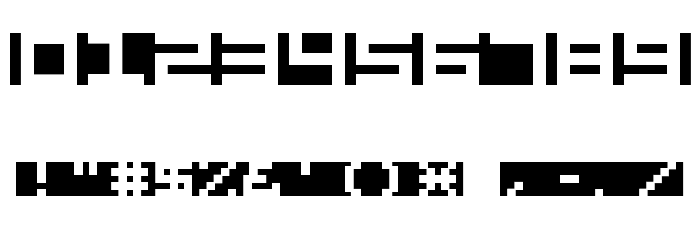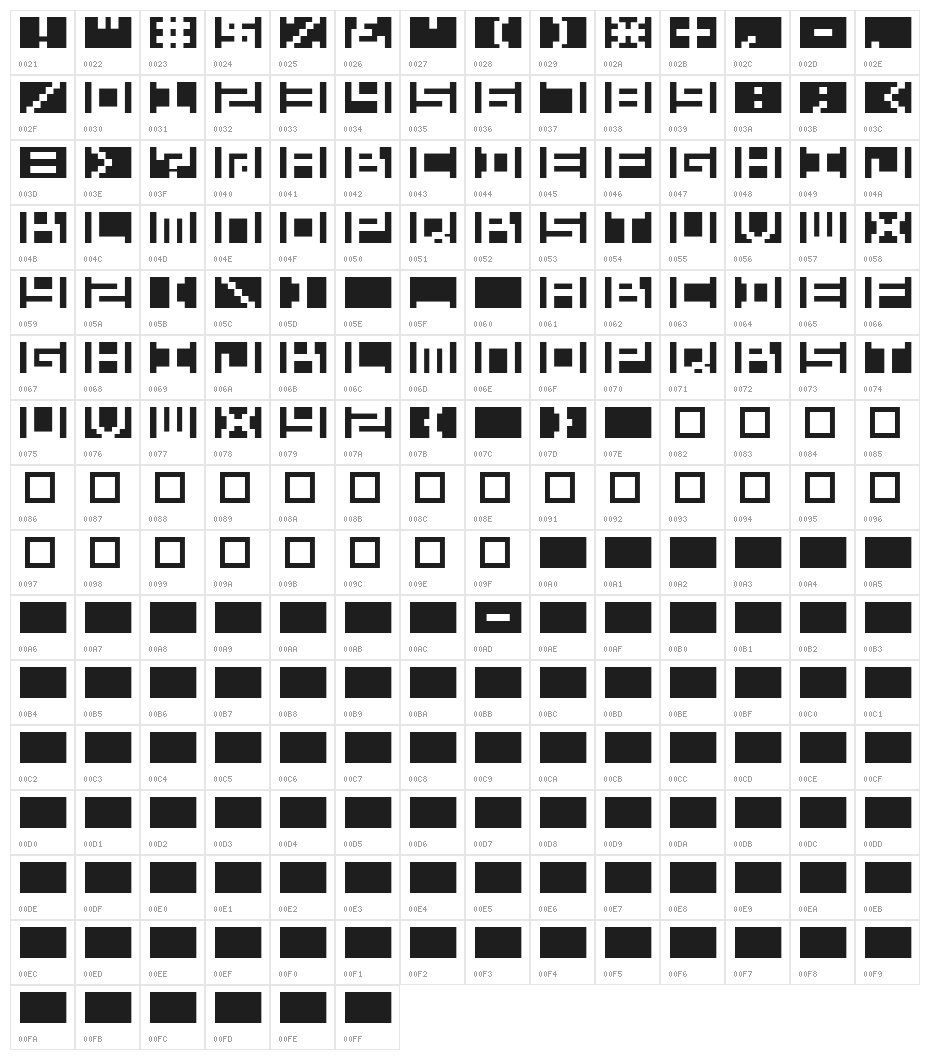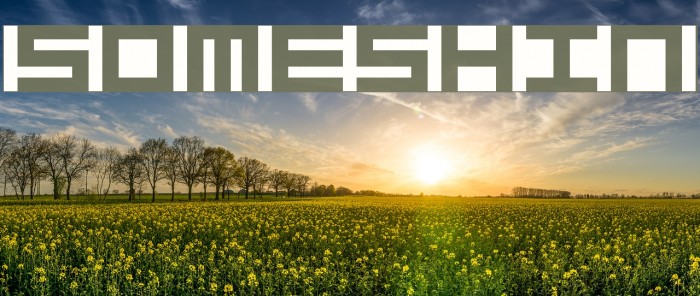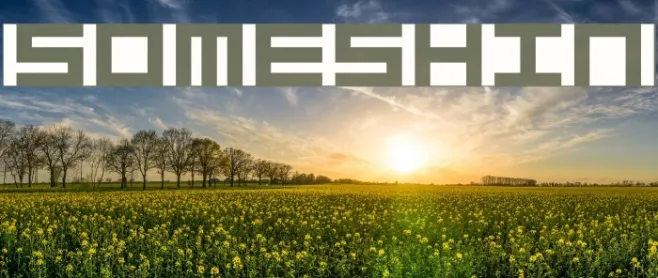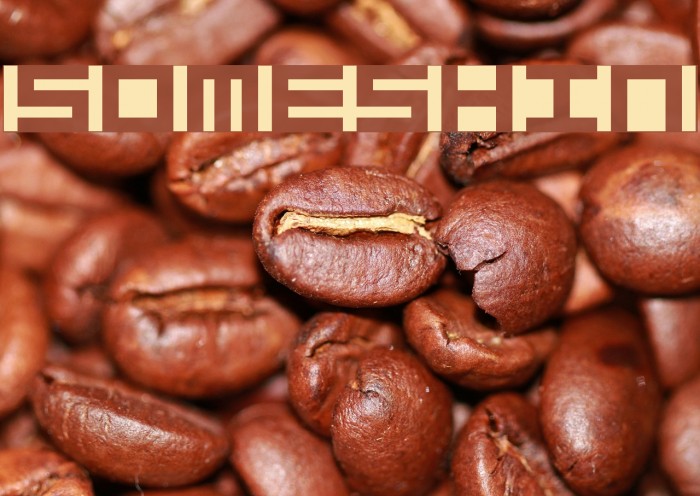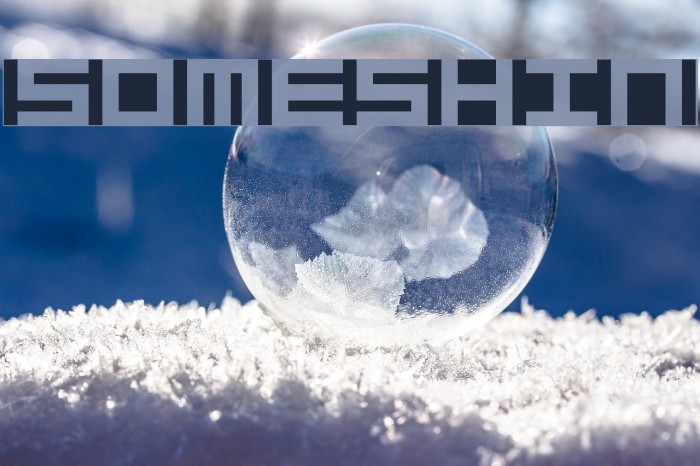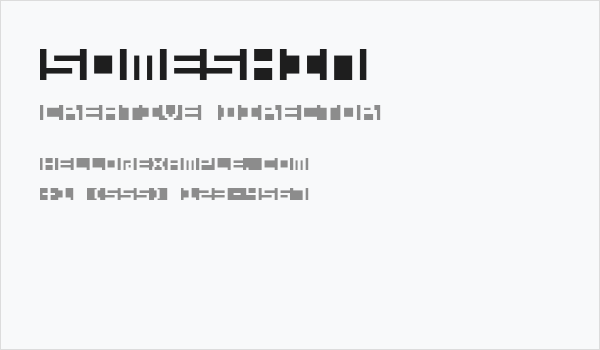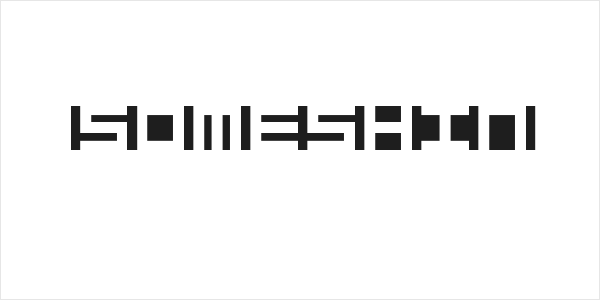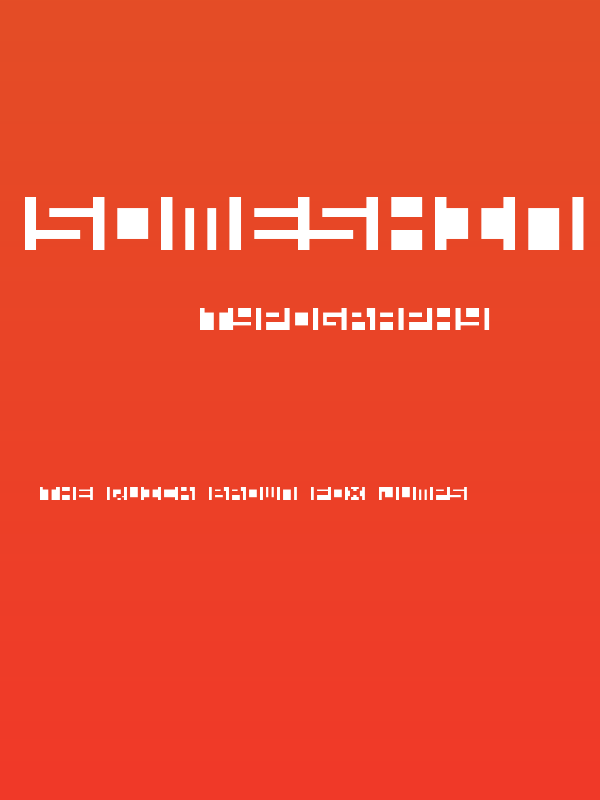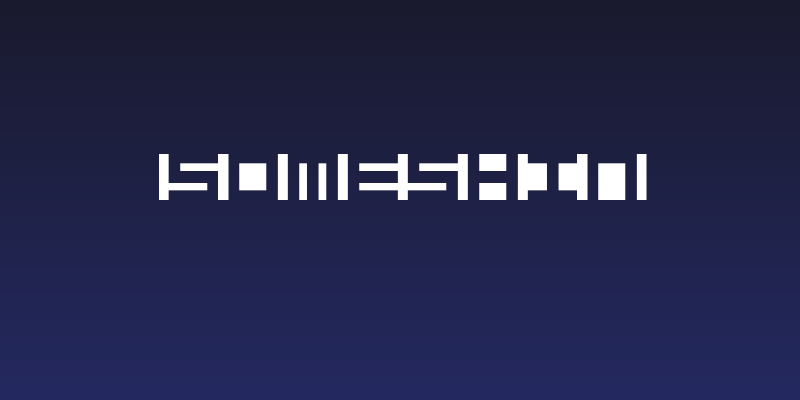
Someshin Font
This font features a highly abstract and geometric design, with each character composed of bold, block-like shapes. The characters are constructed using a series of straight lines and right angles, creating a pixelated appearance. The uniformity in height and width across all characters gives it a monospaced feel, although the actual spacing between characters is quite tight. The font lacks any curves or traditional serifs, emphasizing a modern and digital aesthetic. Its unique style makes it stand out, but may challenge readability in longer texts.
| Use Case | Logos, Headlines, Digital Art |
| Proposed Projects | Ideal for digital art projects, tech-themed designs, video game graphics, or any creative work requiring a futuristic and abstract typeface. |